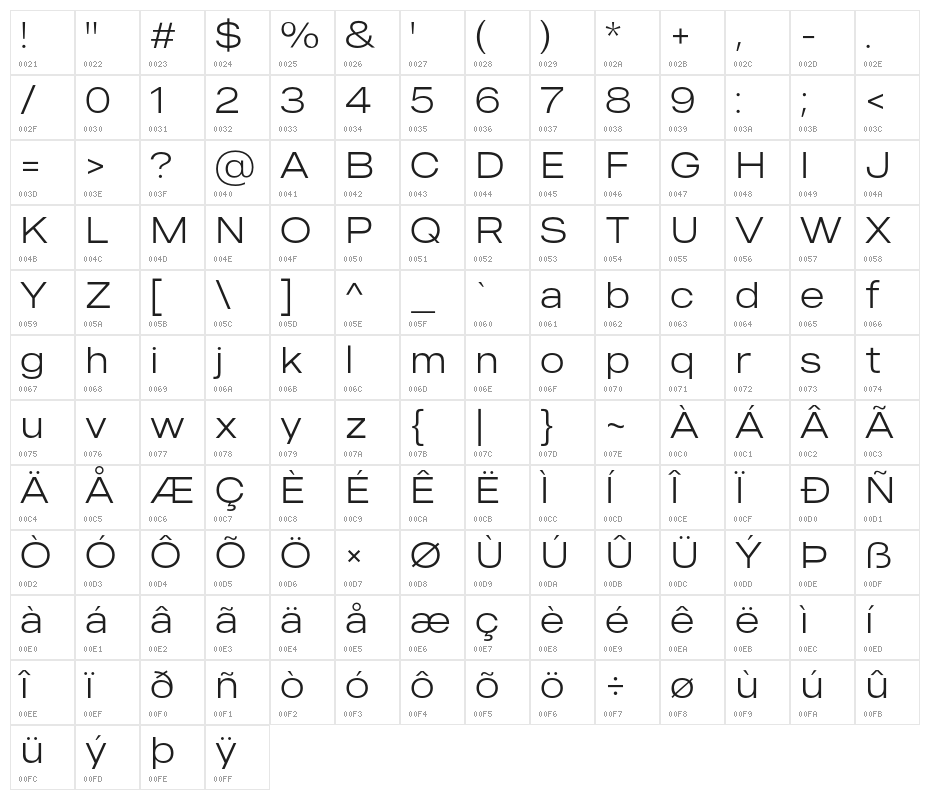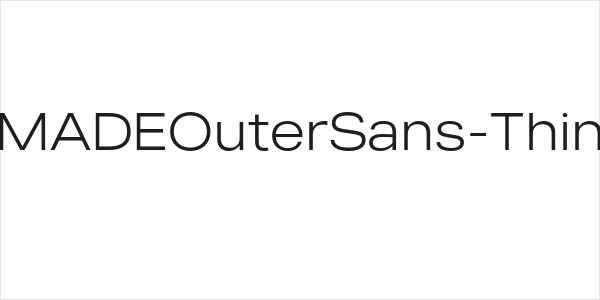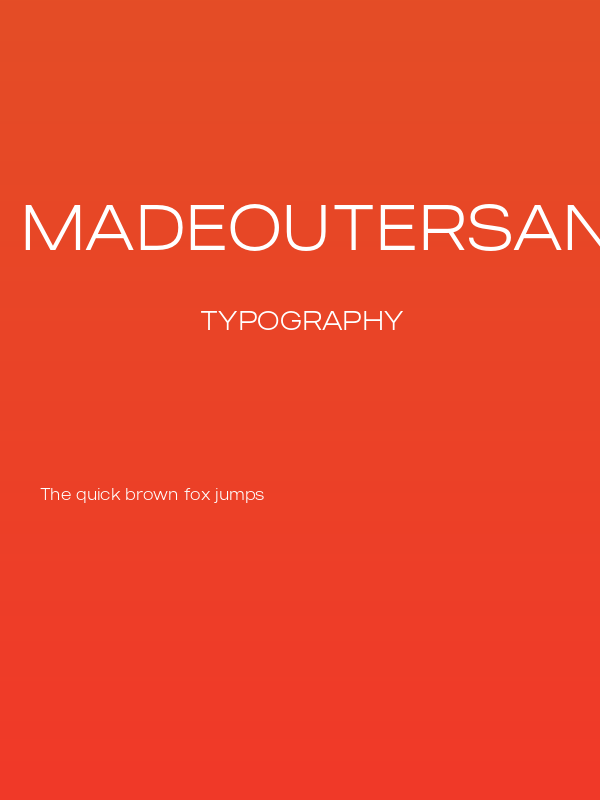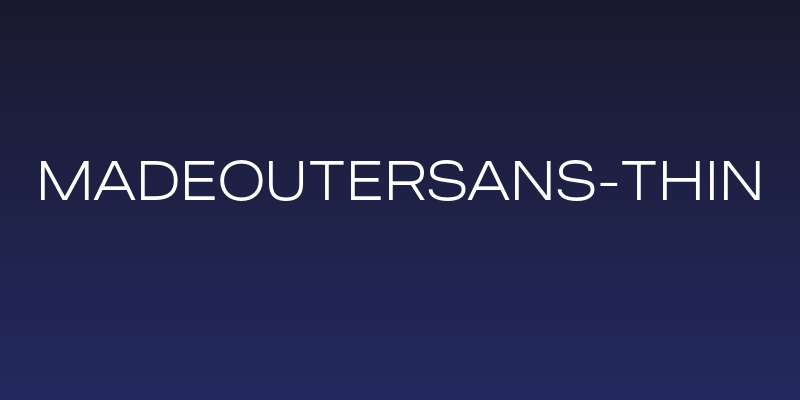
MADEOuterSans-Thin Font
MADEOuterSans-Thin Description
This font features a clean and modern sans-serif design with a thin weight, offering a sleek and minimalist appearance. The characters are well-proportioned with a consistent stroke width, providing a sense of balance and harmony. The uppercase and lowercase letters maintain a uniform style, with rounded edges that add a touch of softness to the overall look. The numerals are clear and easy to read, making them suitable for various applications. Special characters are included, enhancing the font's versatility. Its simplicity and elegance make it ideal for contemporary design projects.
| Proposed Projects | Ideal for branding, web design, editorial layouts, and minimalist posters. |